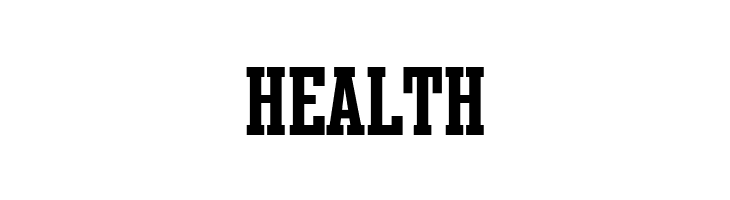
Intramural JL Font
A bold, blocky font with a strong, geometric design ideal for impactful displays.
Maverick BE Font
A bold, stencil-like font with geometric shapes and cut-out sections for a rugged, industrial look.
Action Is, Shaded JL Font
Casady & Greene
A bold, decorative font with a playful, three-dimensional shadow effect.
Dry Goods Narrow JL Font
A bold, condensed serif font with a vintage industrial style.
Lifeline JL Font